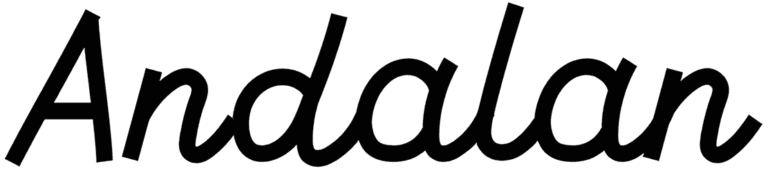
Love Amour Blank Font
Let’s create a cute and fine outward appearance and receive the admiration of your audience. This cartoon font, which is called Love Amour Blank, has a bulky and soft letter style that would be a sweet item for many happy designs. With an almost full cover of characters, this script font will work well to promote your layouts like flyers, apparel, mugs, and so forth.